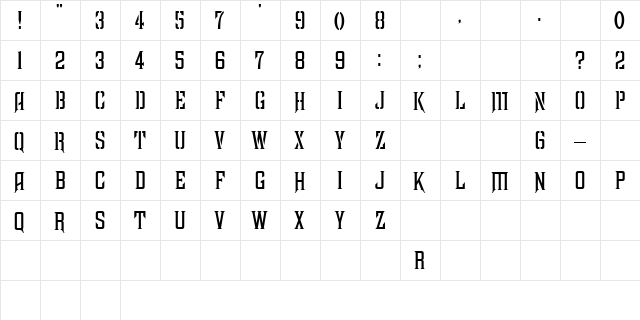
50 Regular Font Preview
50 Regular
Design Context for 50 Typeface
50 offers clean, dependable letterforms without strong stylistic allegiance, making it a practical choice for designers who need flexibility.
Pro Tip: Pair 50 with a font of contrasting weight or personality to build a more expressive typographic hierarchy.